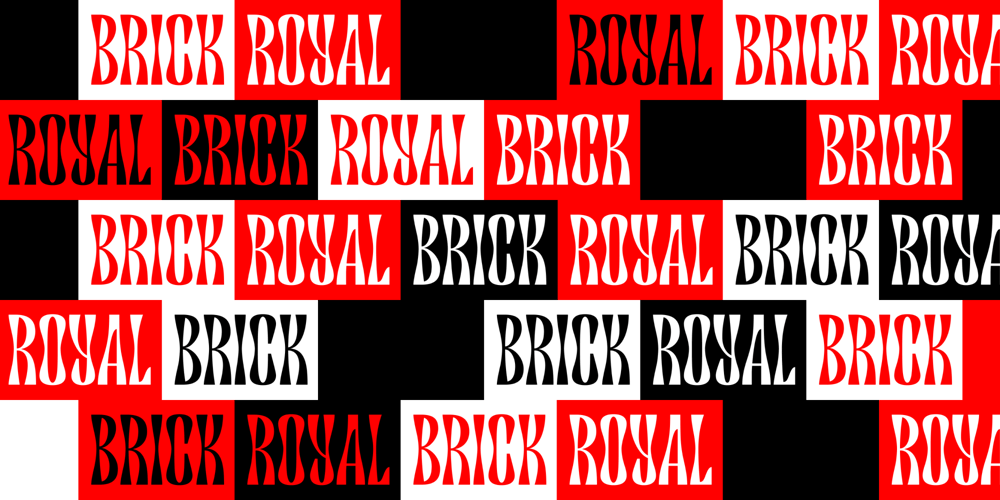
Royalbrick Font Family was designed by Tasya Petelina and published by Bake me a font. Royalbrick contains 1 styles and family package options. Royalbrick is a contemporary display unicase typeface. It is a part of upcoming type family — light and condensed style. The font was inspired by factory stamps’ typography on bricks made in 19-20 century on Russian manufactures — this kind of bricks was also called “royal bricks”. It has a unique image with “squashed” stems and dynamic expanding strokes, and there are also some kind of ancient Cyrillic’s vibes in it’s letterforms. It is an excellent example of combining national character with modern trends and expressive graphics.Royalbrick consist of extended Latin and Cyrillic, figures, two sets of punctuation (normal and “thin” with ss01), few ligatures and stylistic alternatives and a special set for letters with accents — ss02 named “Downstairs Accents”. The font has 292 glyphs.